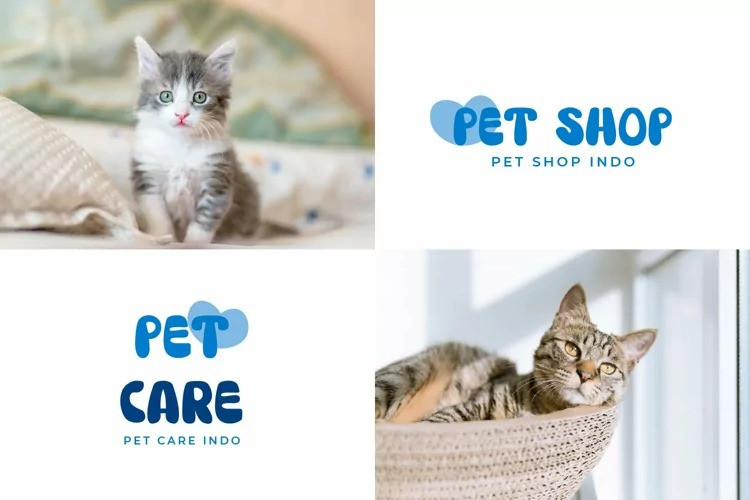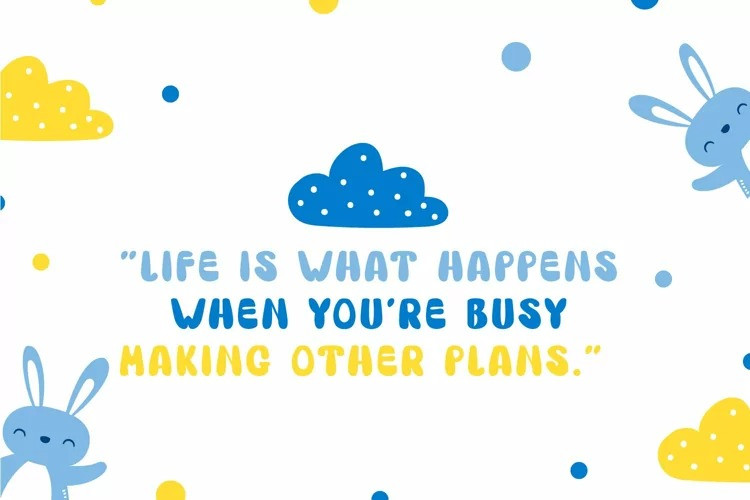
Sinky Font
Sinky Display Font is a cute and quirky display font that fits perfectly into anything. Its casual charm makes it look very down to earth, easy to read and, in the end, very versatile.